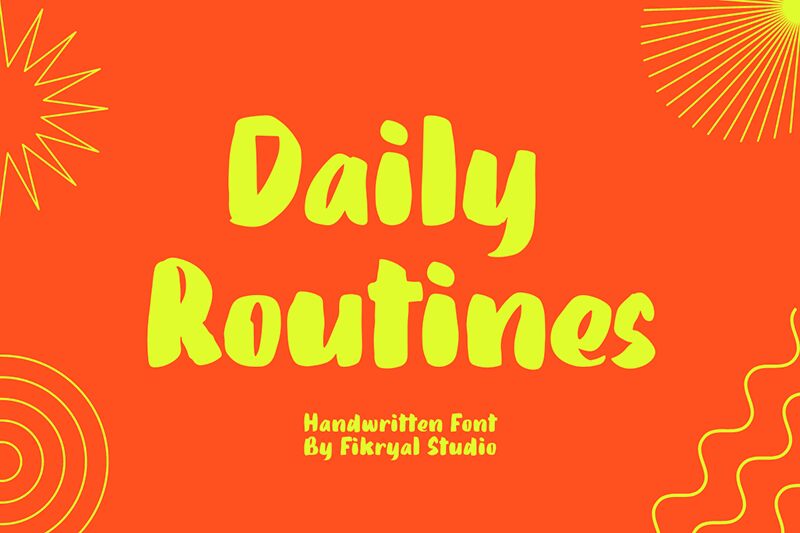
Daily Routines font is an artistic creation by Fikryal Studio, embodying a playful and casual essence. This brush-style font showcases a bold presence with a dynamic flow, capturing a handwritten aesthetic. Whether you want to decorate professional or personal projects, use this free font to establish warmth.
Use this versatile typography for cards, invitations, posters, business cards, signs. And add originality to mugs and t-shirts with playful designs. Some of your other options are planners, notebooks covers/backsides/titles, book covers or titles while working in formal settings such as colleges/universities/workshops-related configures!